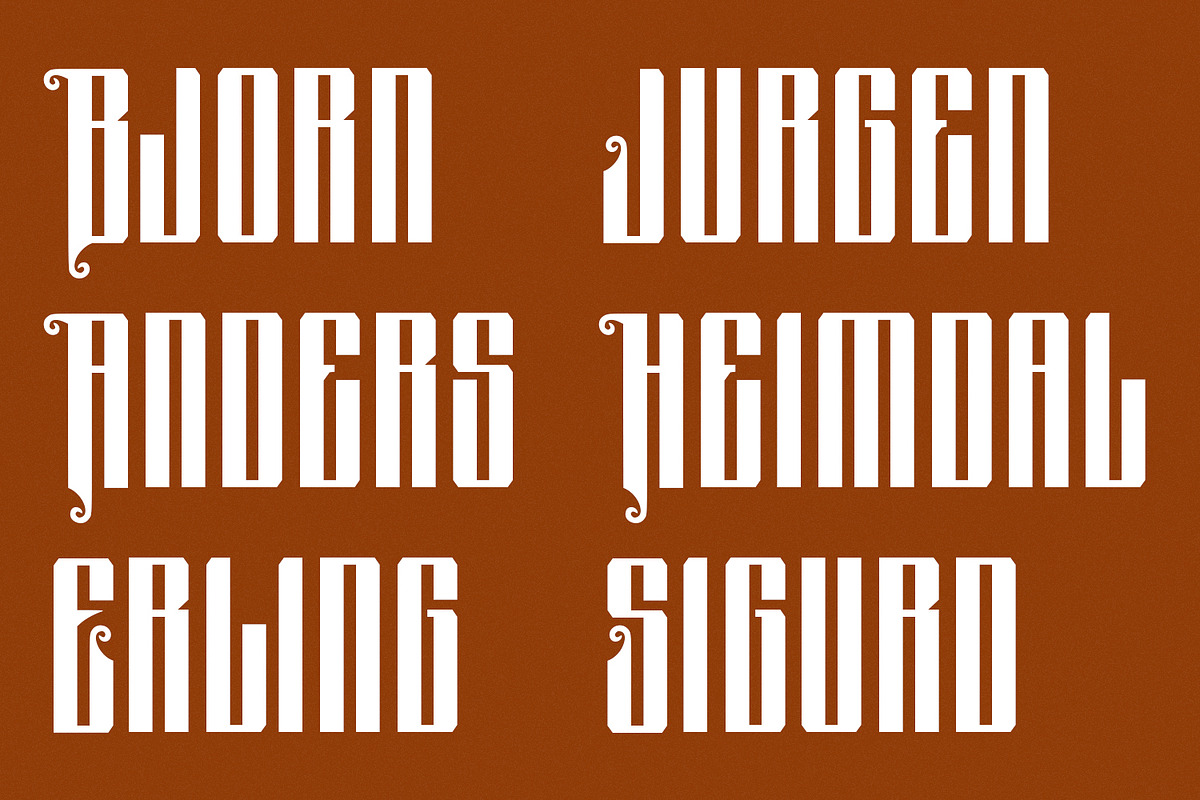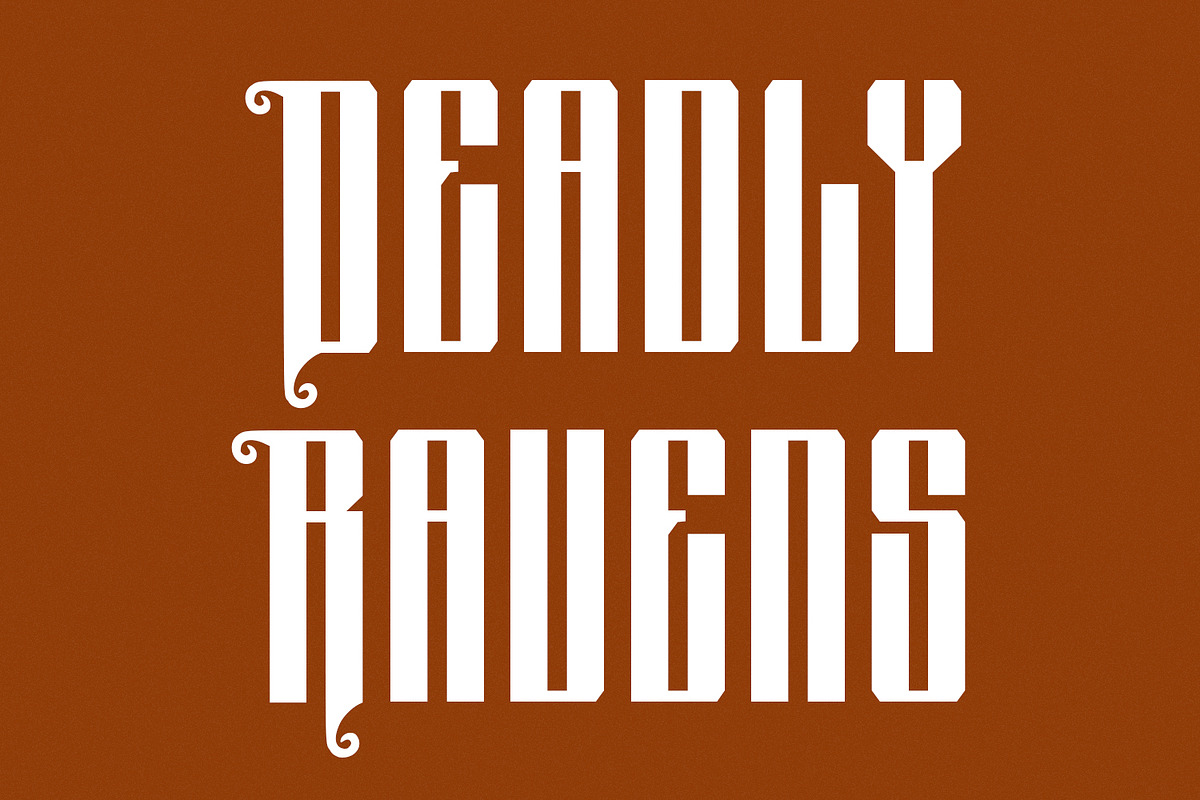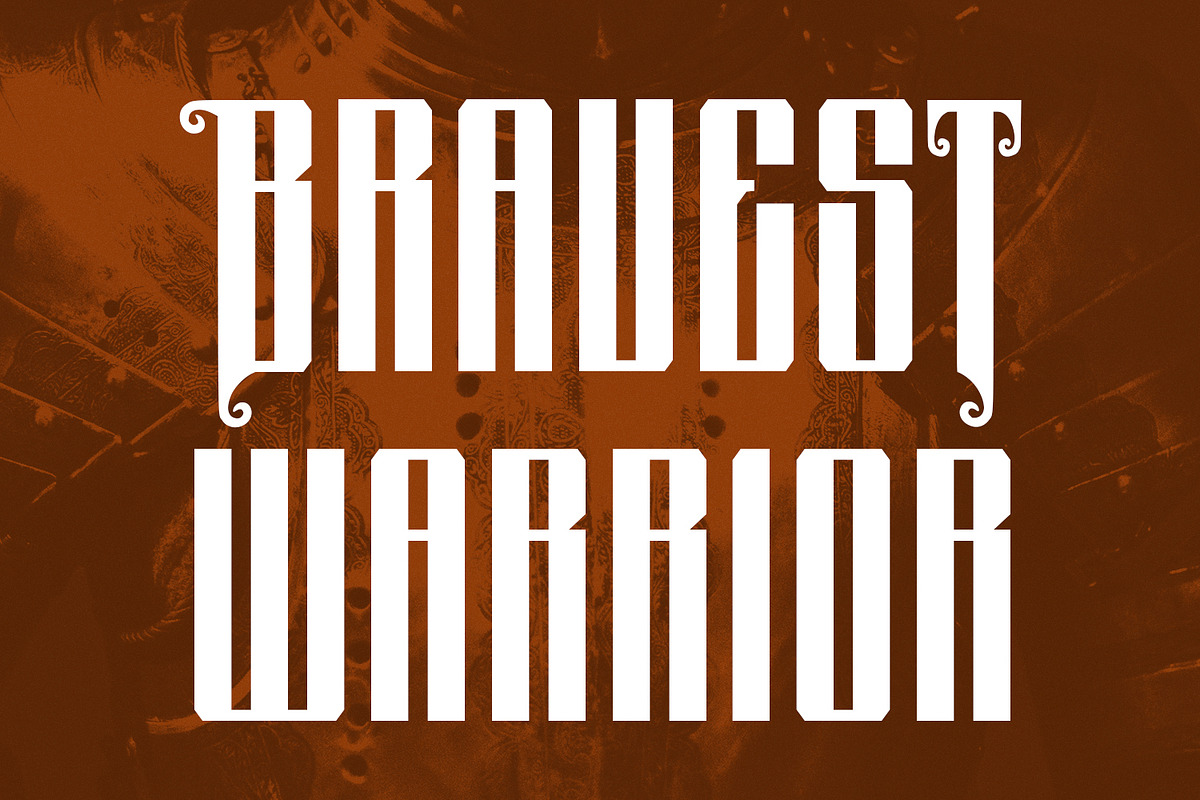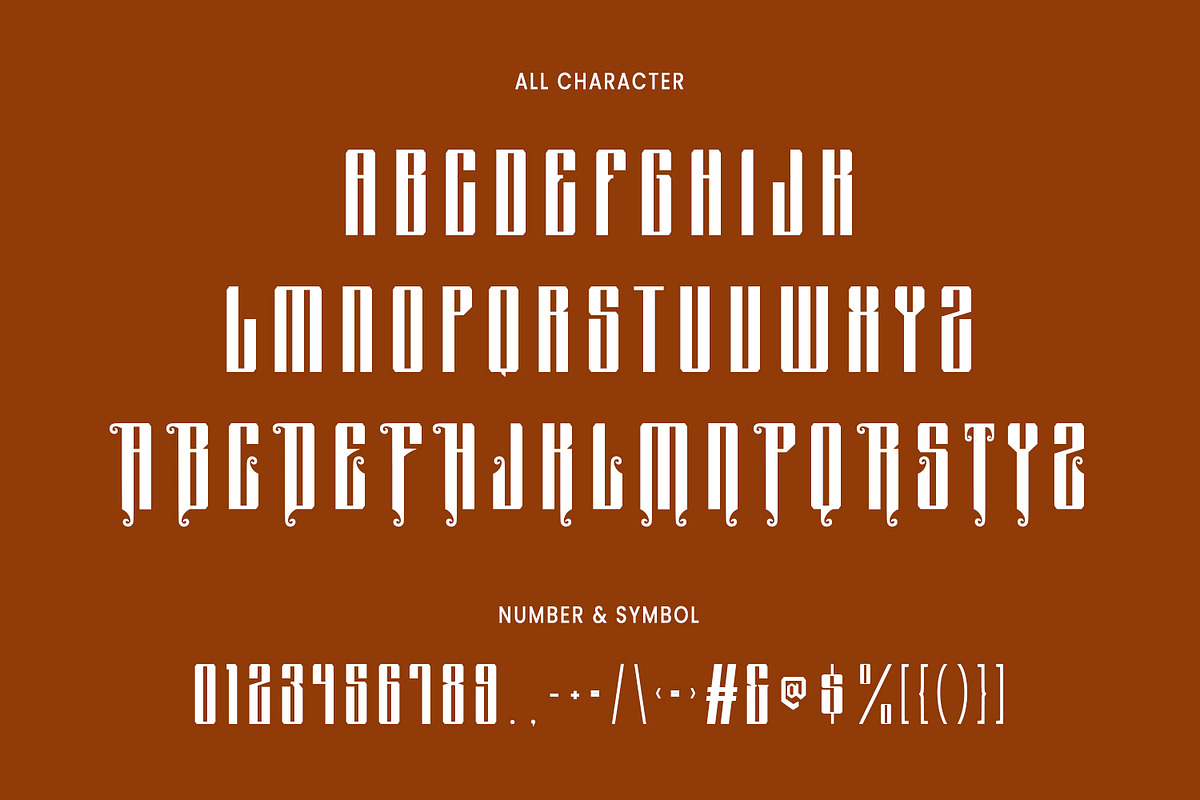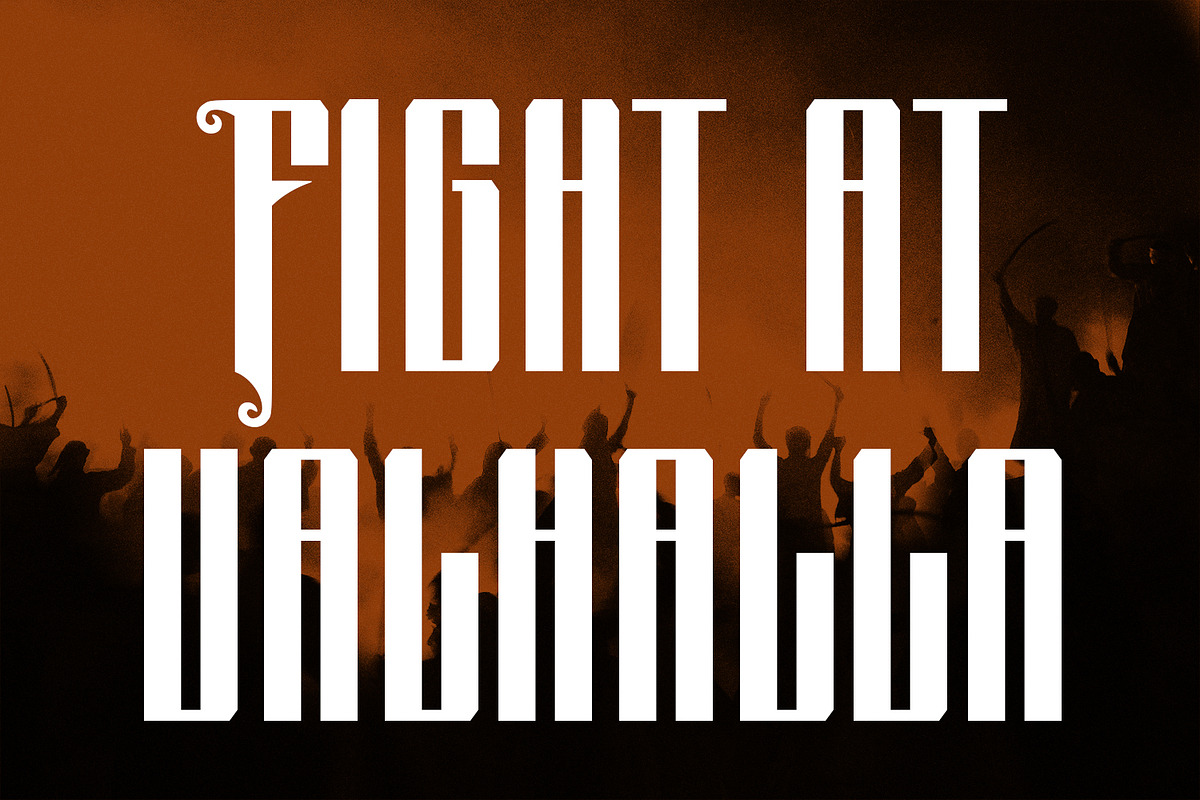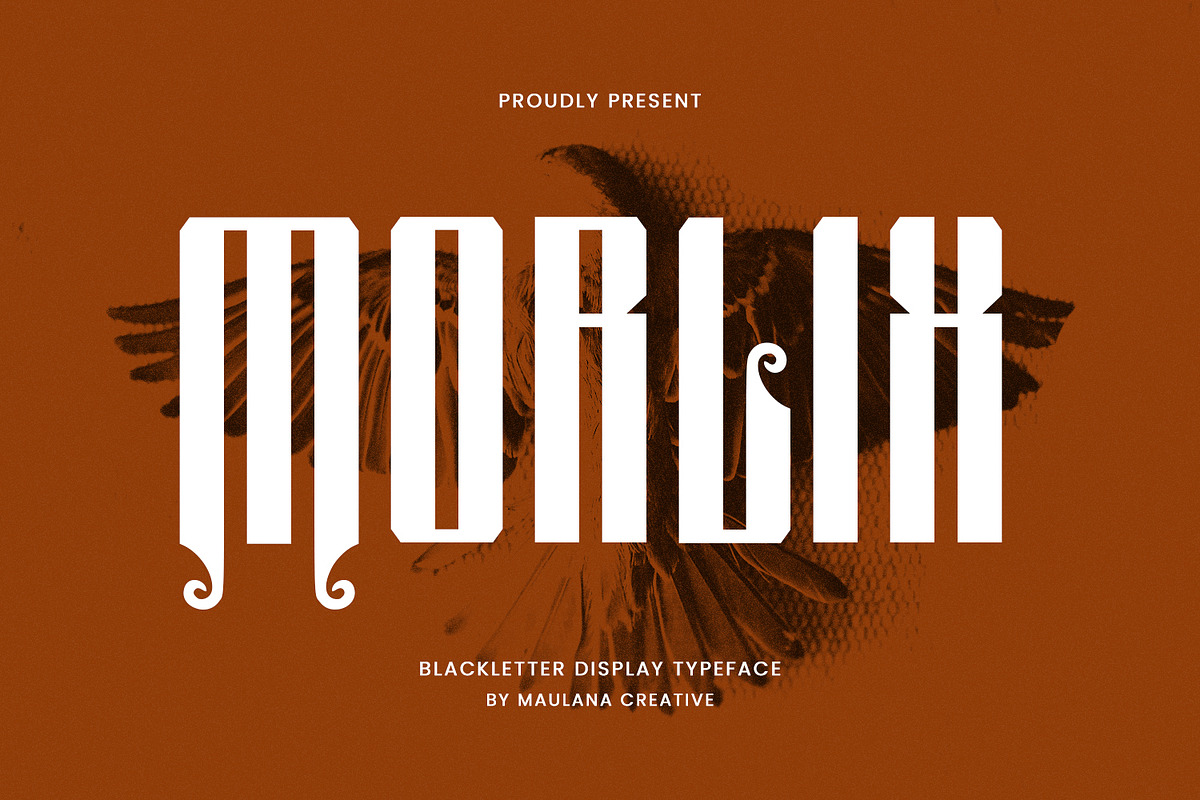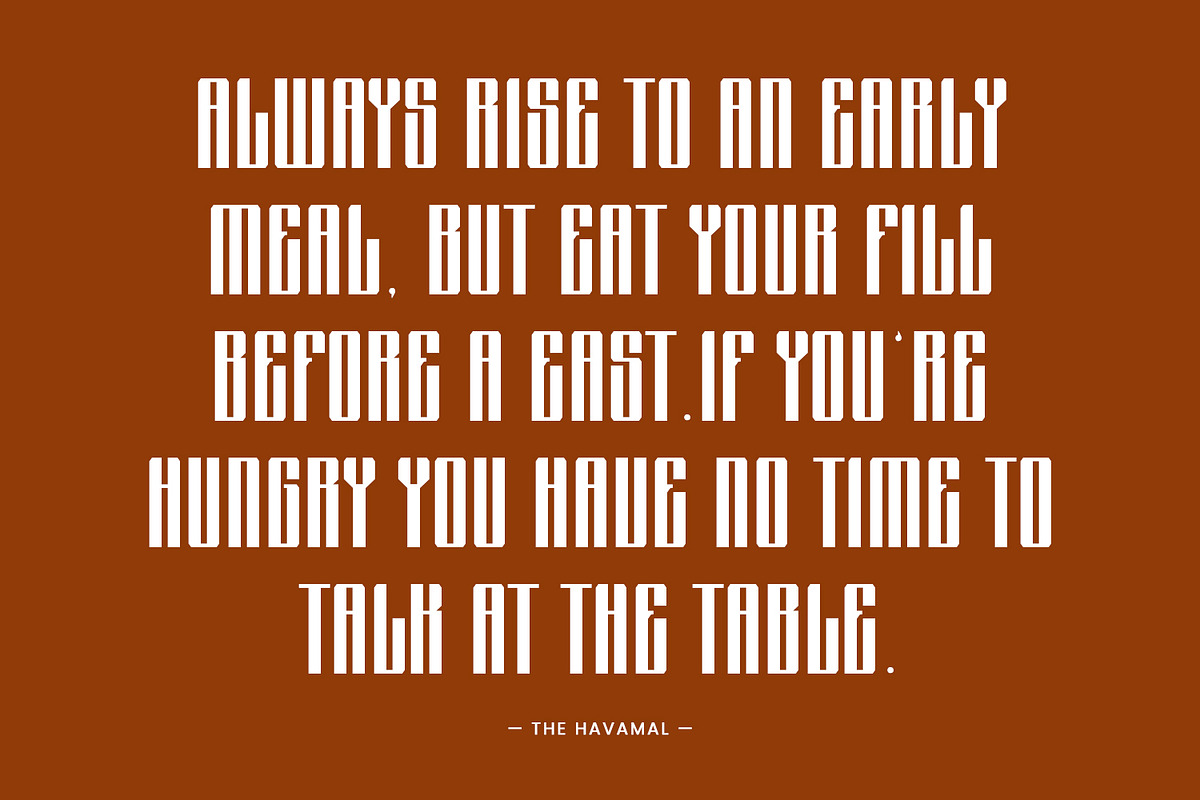
Morlix Blackletter Decorative Displa
Morlix Blackletter Decorative Display Font. With bold tall and sharp stroke, fun character. To give you an extra creative work. Morlix font support multilingual more than 100+ language. This font is good for logo design, Social media, Movie Titles, Books Titles, a short text even a long text letter and good for your secondary text font with sans or serif. Make a stunning work with Morlix font.